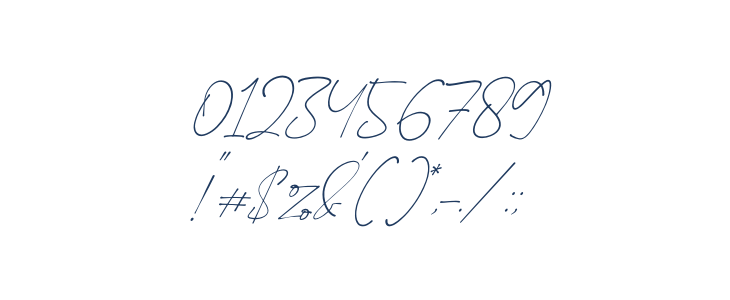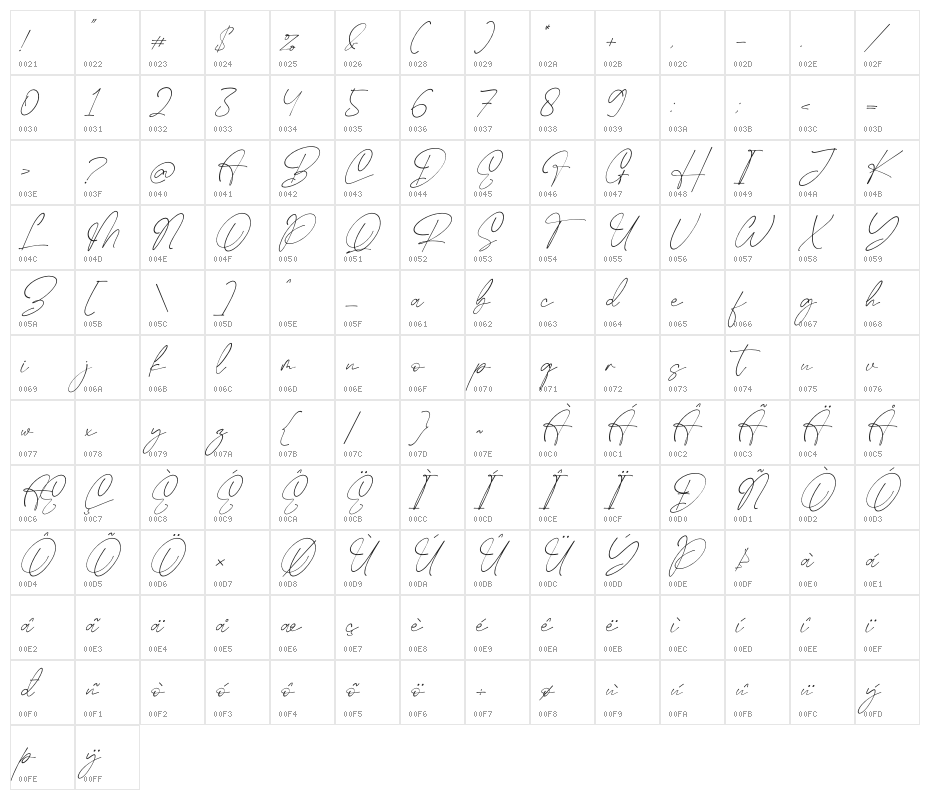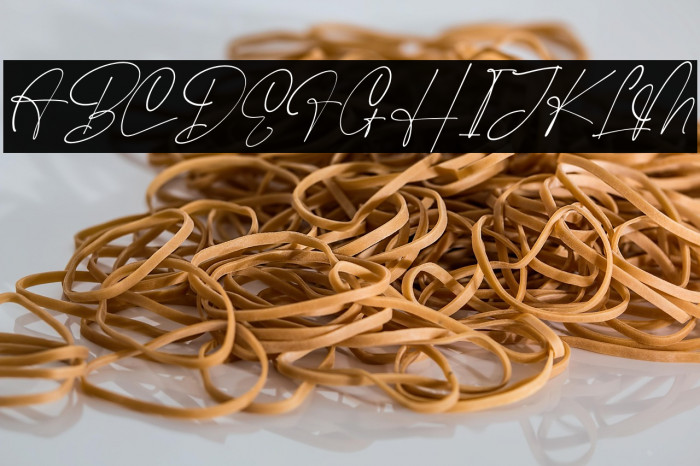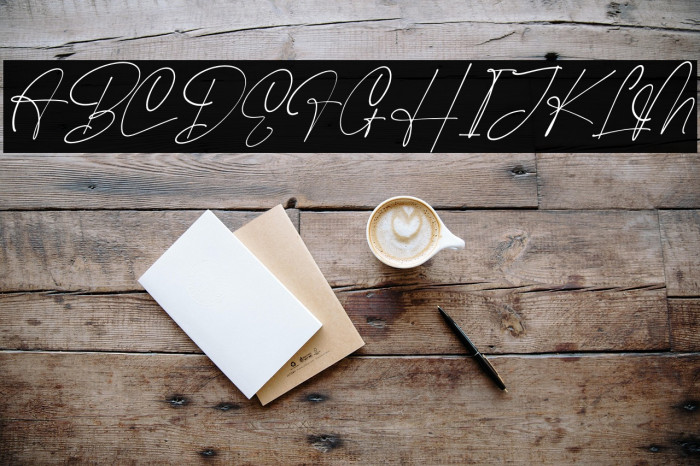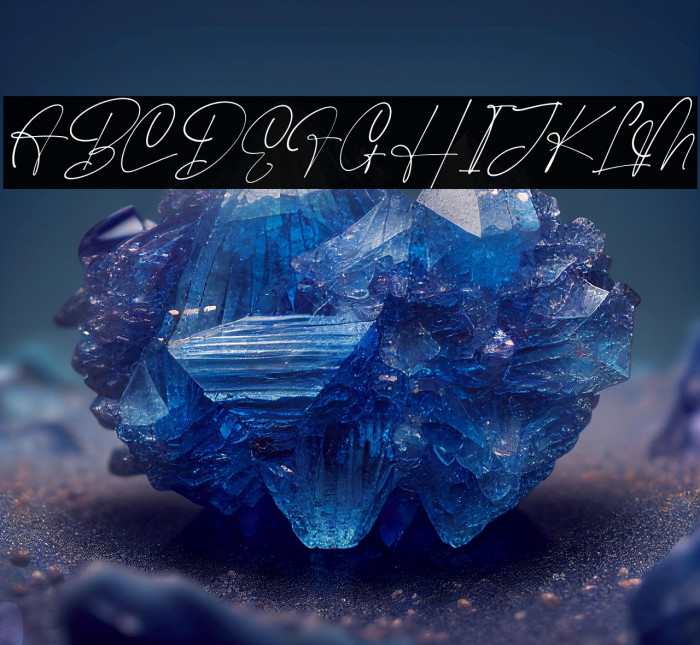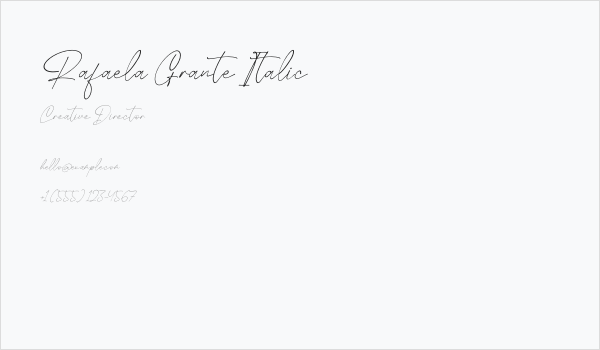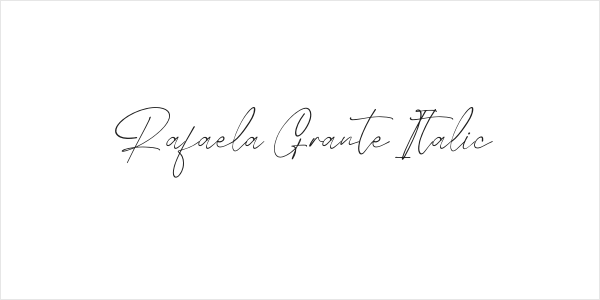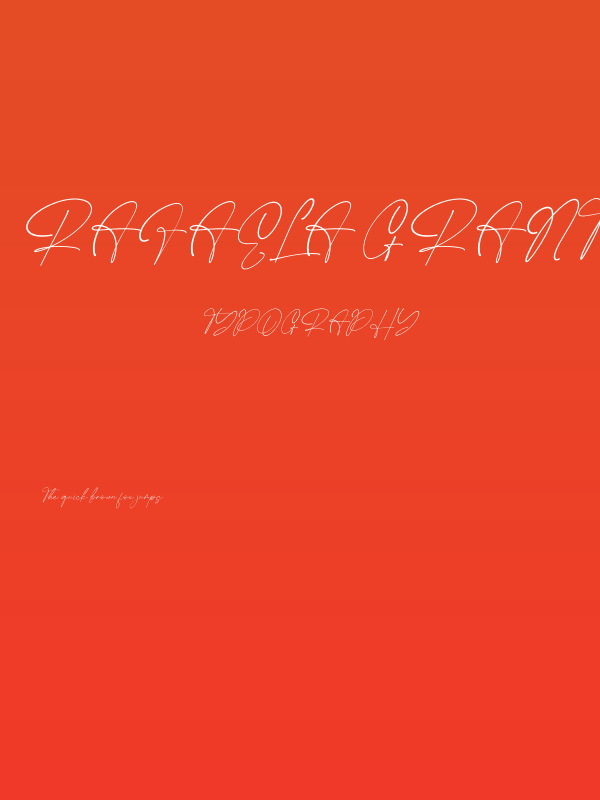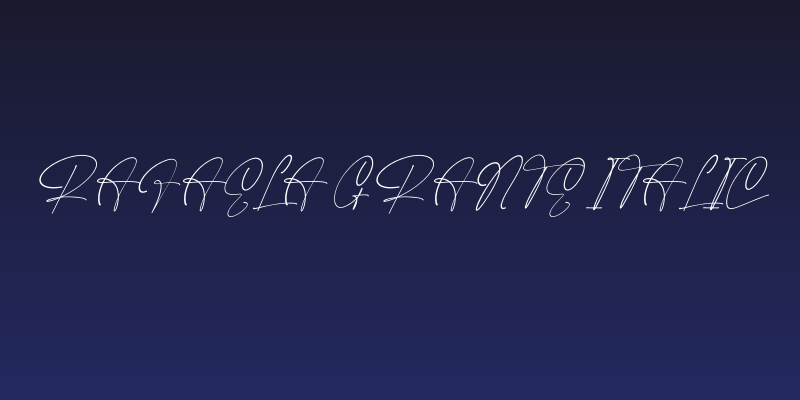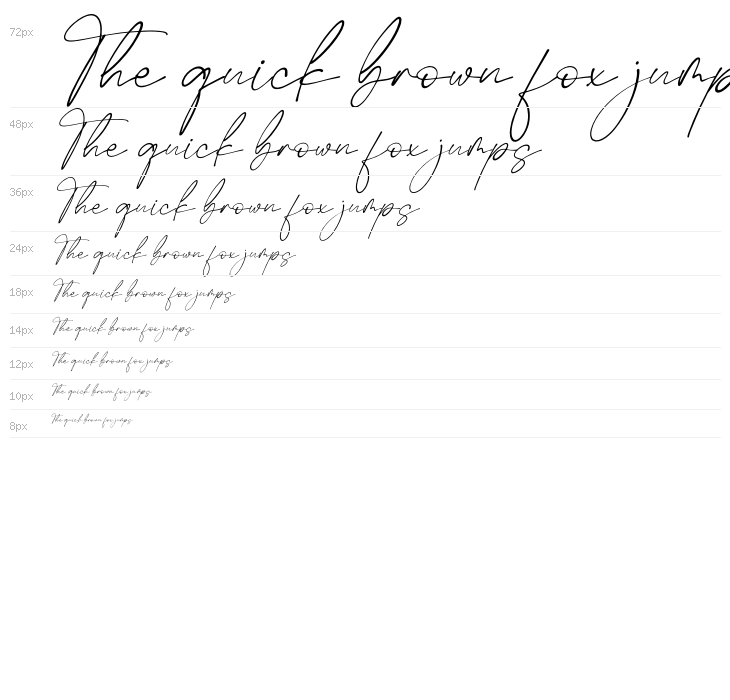
Rafaela Grante Italic Font
Rafaela Grante Italic Description
This elegant script font features a flowing, cursive style with delicate, thin strokes that give it a refined and sophisticated appearance. The letters are interconnected, creating a seamless and fluid look, ideal for conveying elegance and grace. The uppercase letters are slightly more ornate, with flourishes that add a touch of flair, while the lowercase letters maintain a consistent rhythm and balance. The numerals and special characters are designed to match the overall aesthetic, ensuring a cohesive look across all text elements. This font is perfect for projects that require a touch of elegance and sophistication, such as wedding invitations, formal event programs, or high-end branding materials.
Overall StyleElegant
Use CaseLogos, Invitations, Decorative text
Proposed ProjectsIdeal for wedding invitations, formal event programs, luxury branding, and elegant stationery.